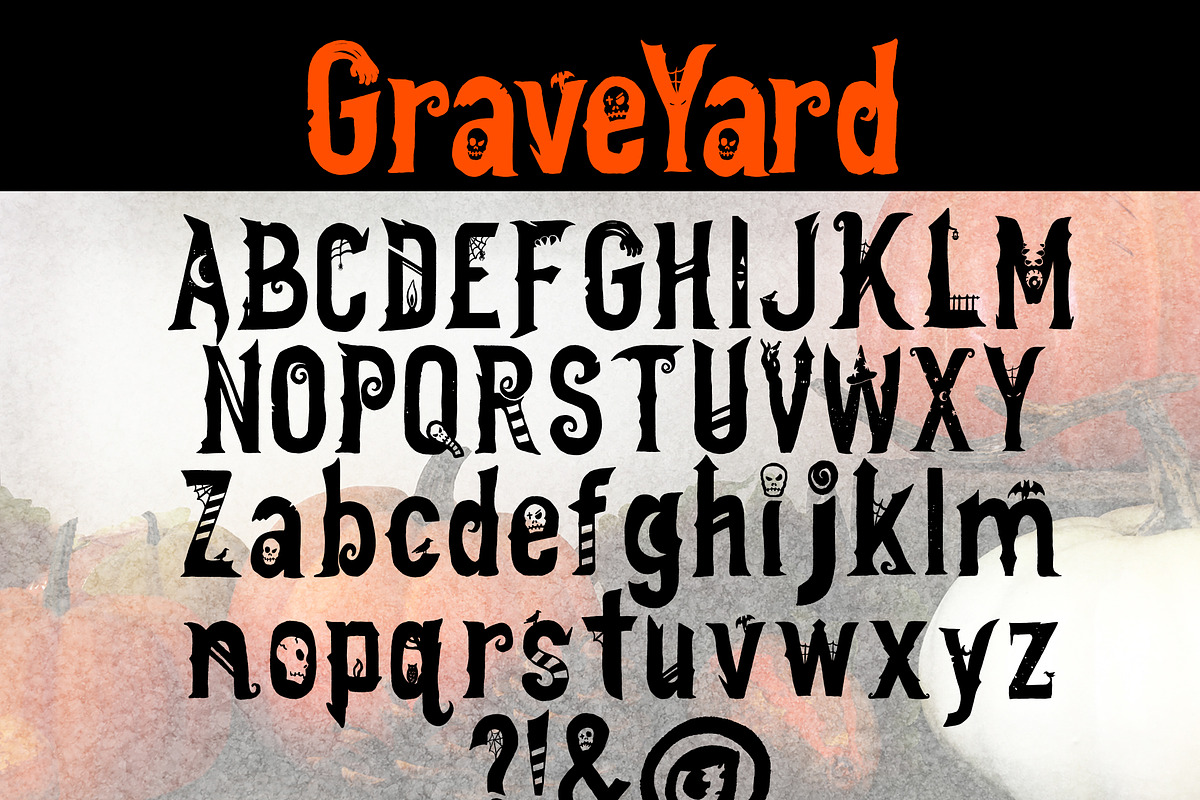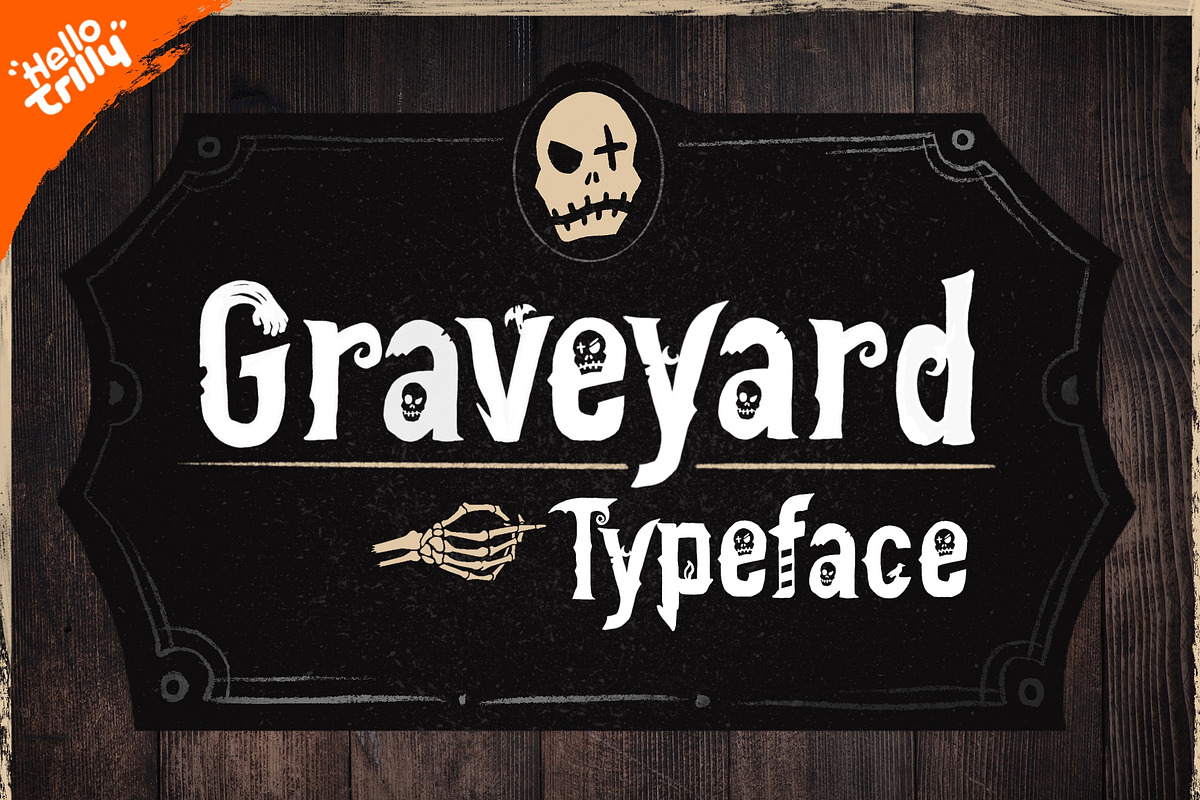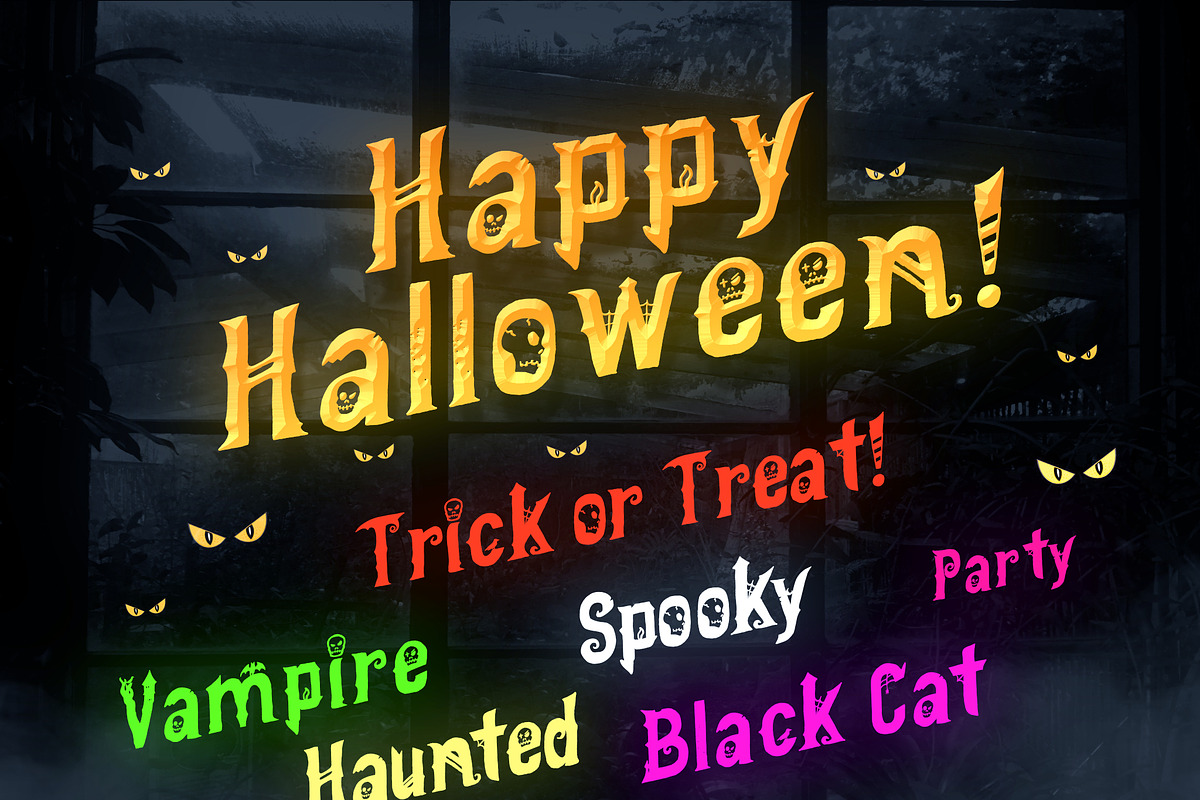
New Halloween Font called: Graveyard
Graveyard is a Halloween themed Open Type Font! Use it to make: Halloween invitations, Banners, T-shirts and any other spooky crafts.
All the letters are hand made by Michael White aka HelloTrilly